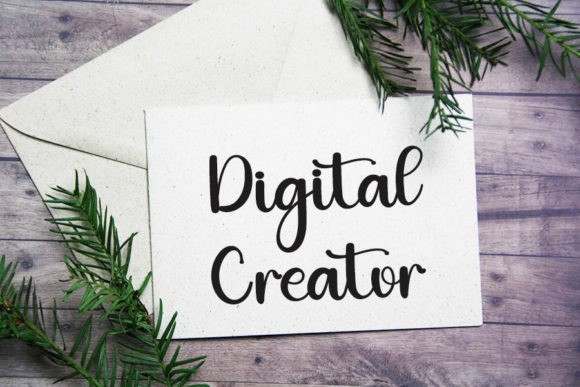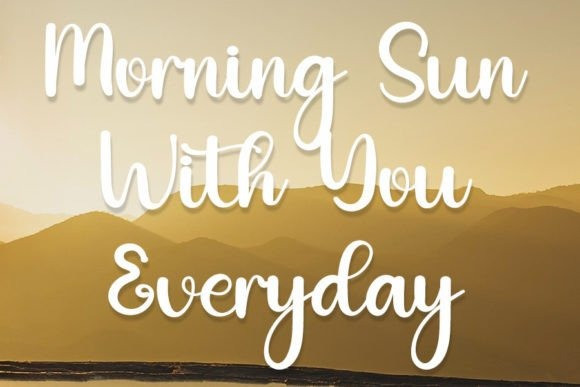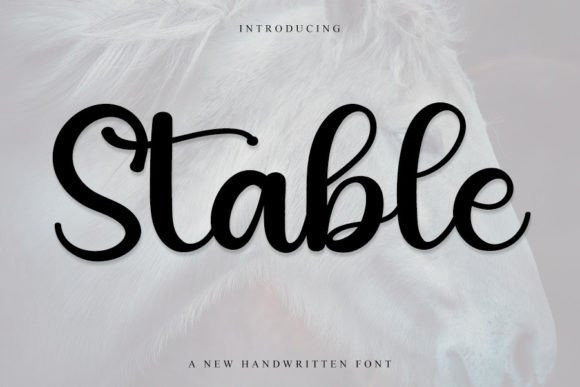
Stable Script Font
Stable Script Font is a trendy handwritten font with a contemporary atmosphere and impeccable form, inspired by a timeless classic calligraphy. It will add elegance and class to any of your design projects. This font can be used to write various kinds of products according to the aspect of each need.